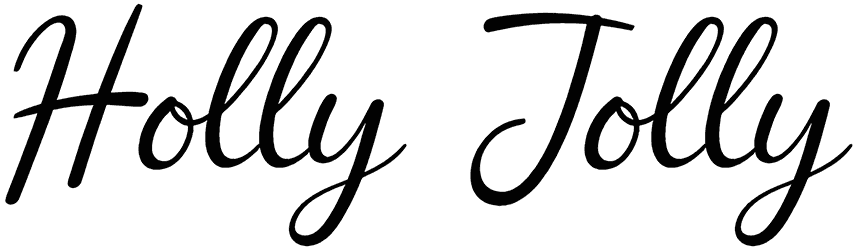
Holly Jolly Font
The ravishing style of manuscript words can engage a lot of viewers, and a calligraphy font like this item can create such a visual. Holly Jolly font, with its smooth and realistic letters, can be a perfect selection for any long or short text. This font will make your birthday party invitation card amazing. Test it for your layout and be impressive.
Holly Jolly is a lovely and delicate script font that exudes elegance and class. This font was particularly crafted for those who need a beautiful and refreshing look to their designs.